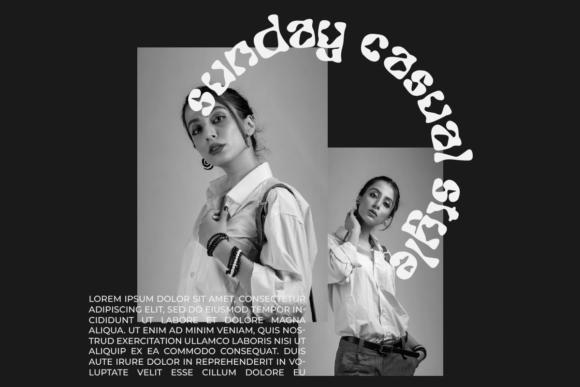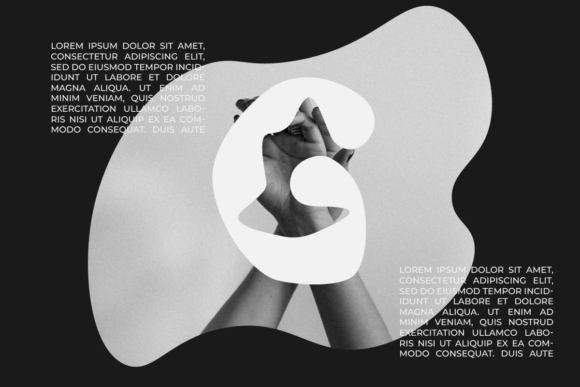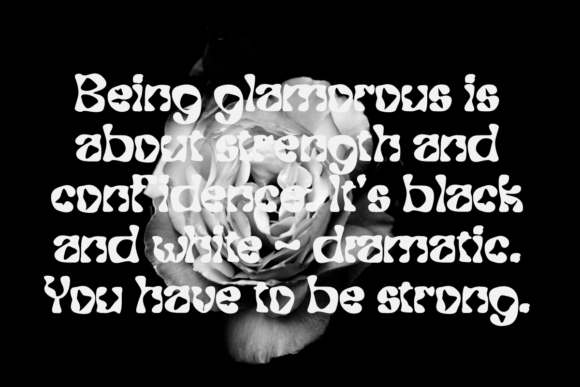
Introduction to Kailn Font
Have you ever stumbled upon a design project that just sparks your imagination? For many designers, this moment is what drives creativity and inspires new ideas. It’s that feeling of excitement and possibility that comes with the blank page, a blank slate waiting for the perfect combination of colors, textures, and typography. And sometimes, it’s just a single font that can elevate an entire project. For designers looking for that special something, the Kailn Font is an incredible choice.
This quirky and sweet display font is perfect for any creative project that requires a touch of whimsy and charm. Whether you’re working on a cartoon, children’s game, or simply want to add a bit of personality to your design, Kailn Font is an amazing resource to have in your arsenal.
Key Features of Kailn Font
- High-quality, professional font design ideal for creative projects and design resources.
- Unique, modern design style that adds a touch of sophistication to any creative project.
- Perfect for use in graphic design, digital art, and other design resources where a high-quality font is required.
Honest Review: Kailn Font
I recently came across the Kailn Font while searching for free design resources, and I must say, it caught my attention. As a designer, I appreciate high-quality fonts that can elevate my creative project to the next level. The Kailn Font did just that.
Here are some things that work well: ✨
- Unique design aesthetic: The Kailn Font has a distinctive style that sets it apart from other fonts.
However, I did encounter some limitations: ⚠️
- Limited font sizes: The font only comes in a limited range of sizes, which may not be suitable for all design projects.
- No bold or italic variations: I would have liked to see bold or italic variations of the font to add more depth to my designs.
Overall, I’m impressed with the Kailn Font. It’s a solid addition to any designer’s toolkit, and I’d recommend it to anyone looking for a unique and high-quality font for their creative project.
Experiment with different font sizes, colors, and styles to achieve the desired look for your creative project. You can also combine Kailn Font with other design elements to create a unique and visually appealing design.
Kailn Font is suitable for a variety of creative projects, including presentations, documents, social media graphics, and website headers. Its high quality and transparent background make it an excellent choice for designers and non-designers alike.